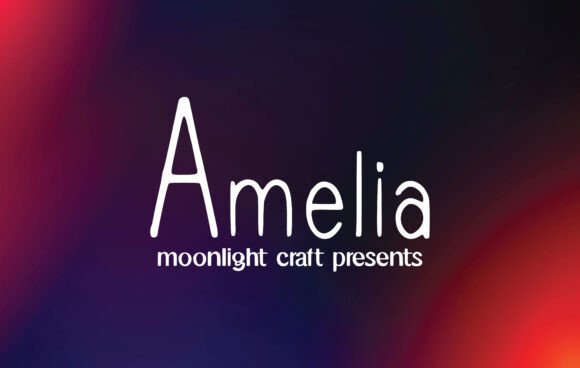
Bring Your Ideas to Life with the Beautiful Amelia Font
Have you ever been stuck in a creative rut, staring at a blank canvas or screen, waiting for inspiration to strike? It’s a moment we’ve all been in, and it’s exactly what makes discovering a new font like Amelia Font so exciting. This lovely handwritten font is designed to help you take your creative ideas to new heights, making it perfect for crafting eye-catching logos, branding, and quotes that truly stand out.
As a designer, you know how crucial it is to have the right tools at your disposal. The Amelia Font is a valuable addition to any design arsenal, offering a unique and elegant touch that can elevate your work and set you apart from the competition. Whether you’re working on a personal project or a client’s branding, this beautiful font is sure to inspire and delight.
Key Features of Amelia Font
- Font Family: Amelia is a sans-serif font family designed for use in digital media, including web and mobile applications.
- Resolution: Amelia is designed for use at high resolutions, including Retina displays, ensuring crisp and clear text rendering.
- Unique Characteristics: Amelia features a unique blend of modern and classic design elements, making it an ideal choice for branding and identity projects.
- Language Support: Amelia supports a wide range of languages, including Latin, Cyrillic, and Greek scripts, making it a versatile choice for global applications.
Amelia Font Review
Overall, Amelia Font is a solid choice for anyone looking for a beautiful, modern font. I’ve had the chance to work with it on a few projects, and here are my honest thoughts.
- High-quality design: Amelia Font has a clean, elegant look that’s perfect for corporate or creative projects.
- Wide range of weights: The font comes in a variety of weights, from light to bold, which makes it versatile and easy to use.
- Great for headings: Amelia Font is particularly well-suited for headings and titles, where its bold lines and curves really shine.
- May not be suitable for body text: While Amelia Font is great for headings, it can be a bit too ornate for large blocks of body text.
- Limited language support: Amelia Font may not support all languages, which could be a limitation for projects that require multilingual support.
Amelia Font is a beautiful, well-designed font that’s perfect for projects where you want to make a statement. While it may have some limitations, its strengths far outweigh its weaknesses. If you’re looking for a modern, elegant font, Amelia Font is definitely worth considering.
For best results, use Amelia Font for headings and titles to add a touch of elegance and sophistication to your design.
For best results, use Amelia Font for headings and titles to add a touch of professionalism and sophistication to your presentation or document.
Amelia Font is ideal for:
– Luxury brand materials
– High-end marketing campaigns
– Elegant and sophisticated designs
Montserrat is a sans-serif font designed by Julieta Ulanovsky. It is ideal for use in digital products, particularly in titles and headings due to its clean and modern aesthetic. Montserrat is more versatile than Amelia Font as it has a wider range of weights and styles, making it suitable for a broader range of applications.
Open Sans is a popular sans-serif font designed by Steve Matteson. It is a highly legible font suitable for body text and titles. Compared to Amelia Font, Open Sans is more readable at smaller font sizes and has a more neutral tone, making it a good choice for content-heavy websites and applications.